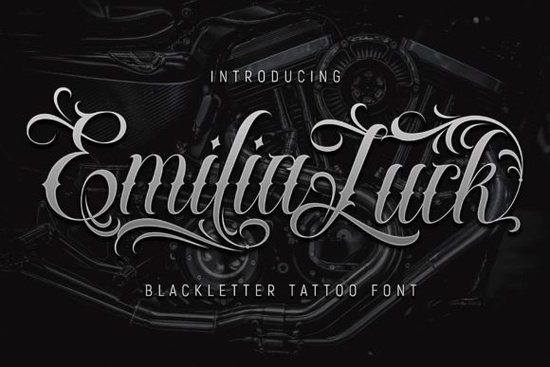
If you’ve been searching for a bold, tattoo-inspired typeface that adds grit and character without looking overdone, Emilia Luck might be exactly what your next project needs. It’s a contemporary blackletter font designed with enough edge to stand out on merchandise or branding, but still clean enough to pair well with illustrations, patterns, or minimalist layouts.
This isn’t the kind of font you slap onto a business card it’s built for impact. Think t-shirts, posters, band logos, or packaging where you want the typography to carry some weight. If you’re designing merch for a small brand, creating flyers for an event, or just experimenting with personal projects, Emilia Luck gives you that hand-drawn, inked-in vibe without needing to sketch anything yourself.
What makes this font work for print-on-demand and branding?
One of the biggest challenges when choosing fonts for physical products is legibility at different sizes and across materials. Emilia Luck holds up surprisingly well even when scaled down the strokes are thick but not overcrowded, and the spacing between letters feels intentional, not accidental. That’s why it’s become popular among designers who sell on platforms like Etsy, Redbubble, or Shopify.
You’ll find it especially useful if you’re working with:
- T-shirt designs the bold lines show up clearly on fabric, even after multiple washes.
- Stickers and decals the sharp edges hold detail during die-cutting.
- Social media graphics it reads well as a headline or accent text in thumbnails or banners.
- Merchandise mockups whether it’s mugs, totes, or phone cases, the font doesn’t get lost in translation.
And because it leans into blackletter tradition without being overly ornate, it pairs easily with modern sans-serifs or handwritten scripts. You don’t need to build your entire design around it just let it do the heavy lifting where it matters.
How does it compare to other blackletter fonts?
Not all blackletter fonts are created equal. Some feel medieval, others feel gothic-horror, and a few just look like they belong on heavy metal album covers. Emilia Luck sits comfortably in the middle it’s got attitude, but it’s not trying too hard.
It avoids the overly spiked serifs or cramped letterforms that can make other tattoo-style fonts hard to read. Instead, each character has breathing room, and the curves feel deliberate, not chaotic. If you’ve ever tried using something like “Old English Text” or “Cloister Black” and found them too stiff or outdated, this is a much friendlier alternative.
For comparison, check out how it stacks up visually against similar styles sometimes subtle differences in x-height or stroke contrast make all the difference in how a font performs in real-world use.
Any tips for pairing it with other fonts?
Absolutely. Since Emilia Luck already brings strong visual energy, keep your supporting fonts simple. A clean sans-serif like Montserrat, Lato, or even Helvetica Neue works great for body text or subheadings. You want the contrast to help guide the viewer’s eye, not fight for attention.
Here’s a quick formula that rarely fails:
- Headline or logo: Emilia Luck (all caps or title case for maximum impact)
- Supporting text: Light or regular weight sans-serif
- Accent element: Optional script or handwritten font for tags or quotes
And don’t forget most versions of this font include alternate characters. Switch out a few letters manually in your design software to give the wordmark a more custom, handcrafted feel. Little details like that can make your design stand out in a crowded marketplace.
Who’s actually using this font right now?
You’ll spot it everywhere from indie coffee shop branding to skate deck graphics. Small tattoo studios love it for flash sheets and social posts. Etsy sellers use it for quote prints and personalized gifts. Even some YouTube creators have started using it in lower thirds or end screens because it reads well on screen and adds personality without being distracting.
It’s not tied to one niche which is part of its strength. Whether you’re designing for punk bands, wellness brands, or retro gaming merch, Emilia Luck adapts without losing its identity.